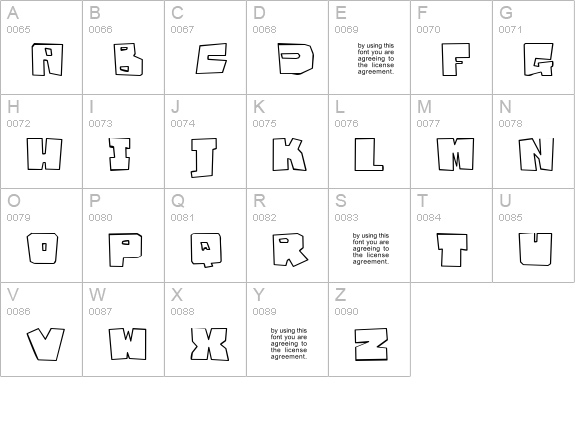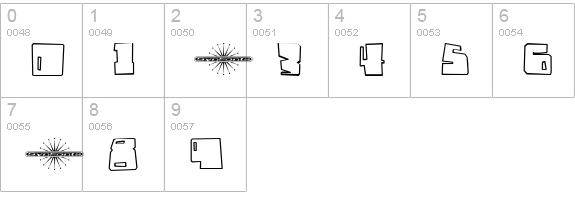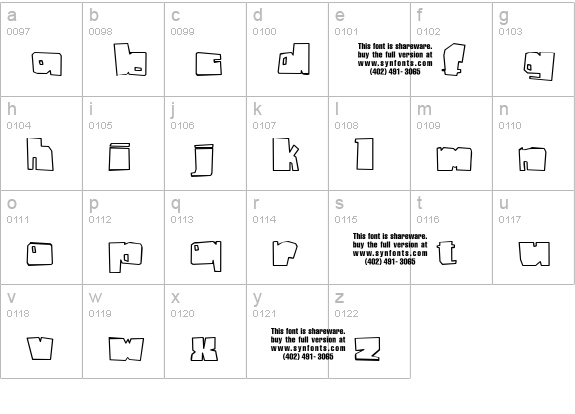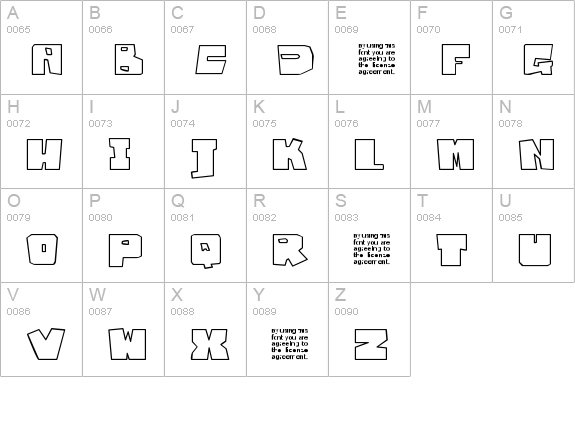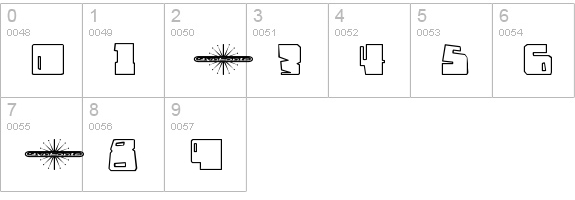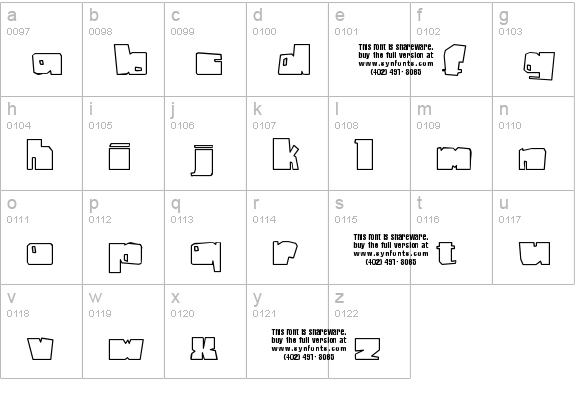
The Badger Fatboy UNPAID DEMO font is a bold and eye-catching typeface that exudes confidence and strength. With its thick strokes and unique characters, this font is perfect for making a statement in your designs. Whether you're creating posters, logos, or social media graphics, Badger Fatboy UNPAID DEMO will help you stand out from the crowd. Best of all, this font is available for free! You can download it at FontsMarket.com and start using it in your projects right away. Don't miss out on this fantastic opportunity to add a touch of boldness to your designs with the Badger Fatboy UNPAID DEMO font.